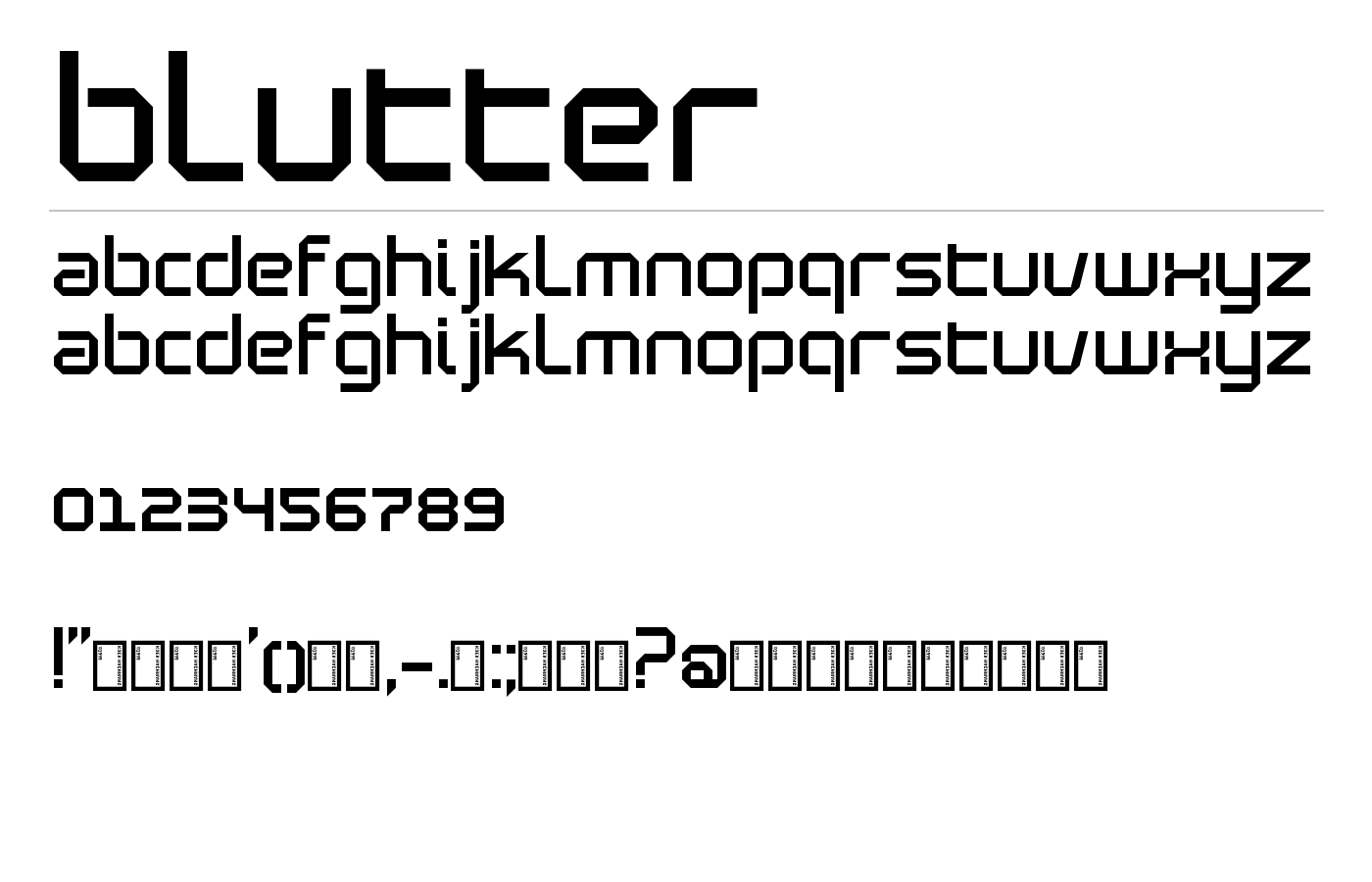
Blutter is a modern, geometric sans serif font characterized by its bold, blocky letterforms with sharp angles and a slightly condensed width. It features a high x-height and uniform stroke weight, lending a strong, tech-inspired, and futuristic feel that works well for digital headlines, logos, and branding that seek a modern, edgy vibe. Its distinctive shapes and clean lines make it ideal for impactful visual statements where clarity and style are essential.
Blutter Font
About Blutter Font